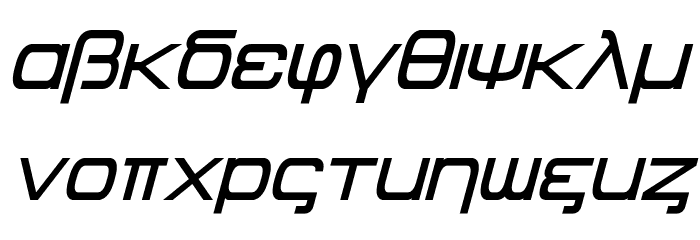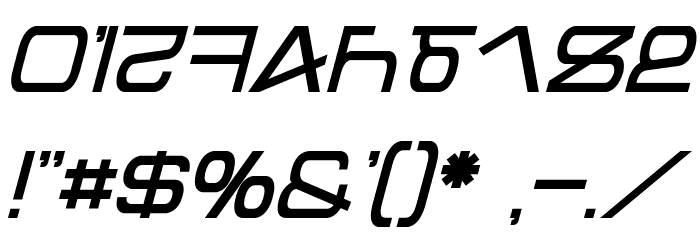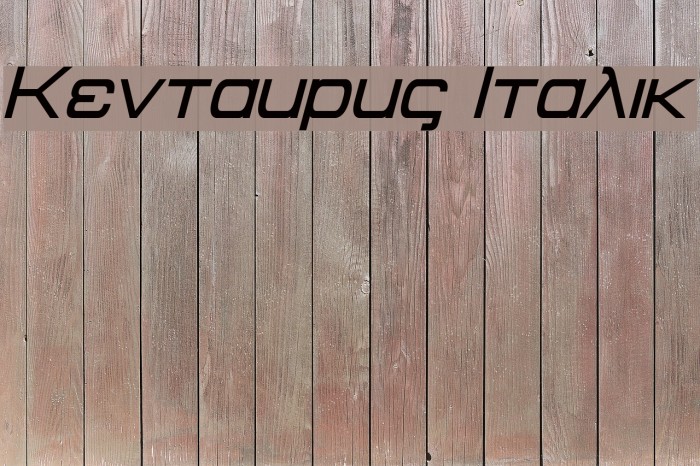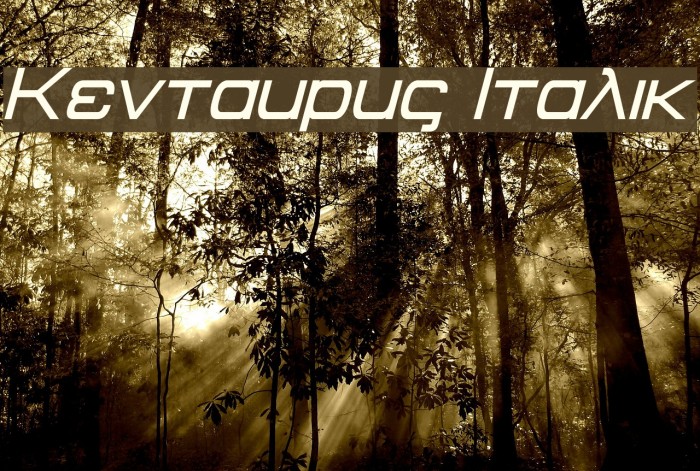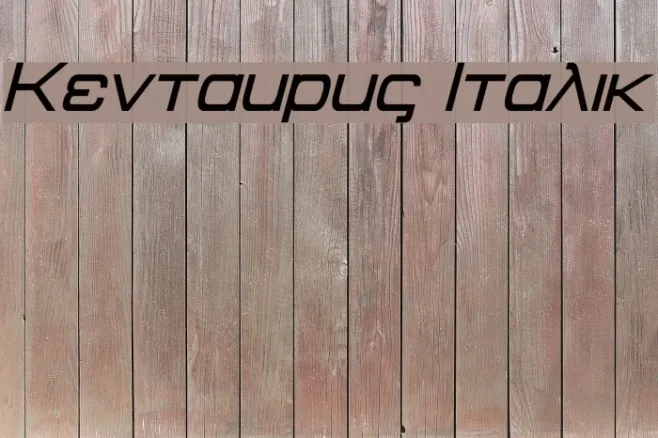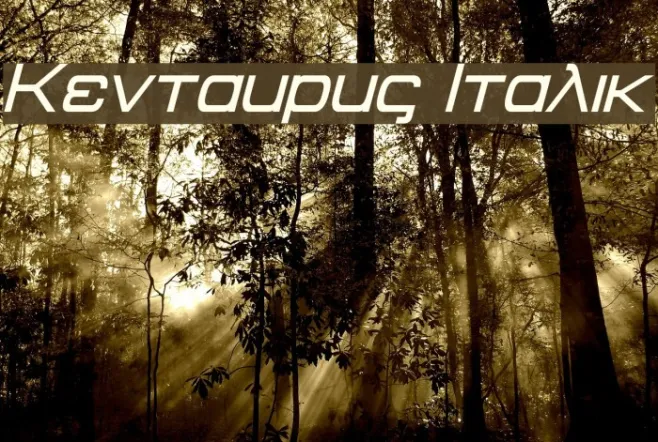
Kentaurus Italic Font
This font features a distinct italic style with a modern and sleek appearance. The characters are slightly slanted, giving a dynamic and forward-moving impression. The strokes are clean and consistent, with a medium contrast that adds to its readability. The design incorporates both uppercase and lowercase letters, numerals, and a variety of special characters, making it versatile for different uses. The spacing between characters is normal, ensuring clarity and legibility. Its unique style makes it suitable for projects that require a contemporary and stylish look.
A modern italic font with sleek, slanted characters and medium contrast.
- Proposed Projects: Ideal for branding, advertising, and editorial design projects that require a modern and dynamic aesthetic.
- Use Case: Headlines, Logos, Branding